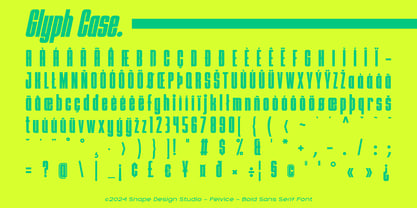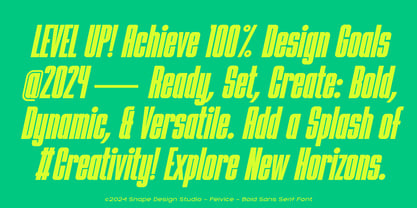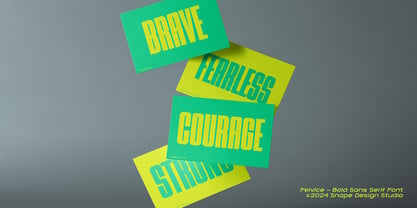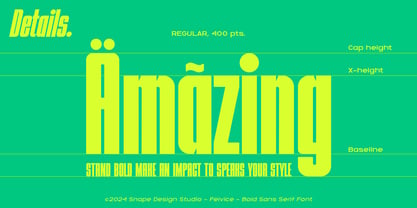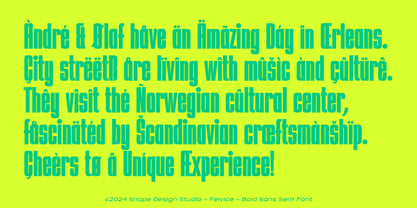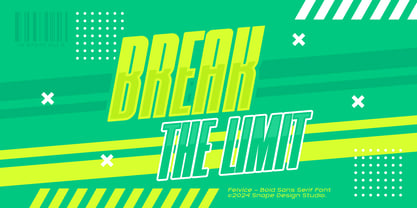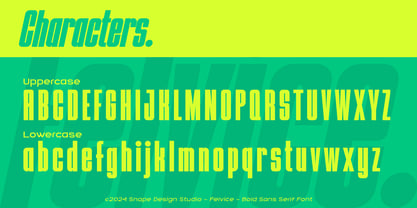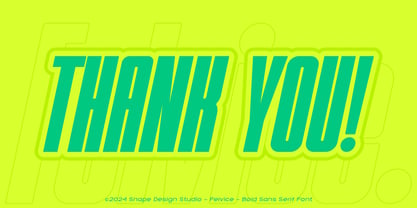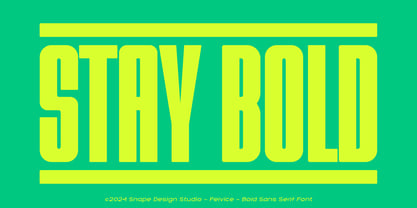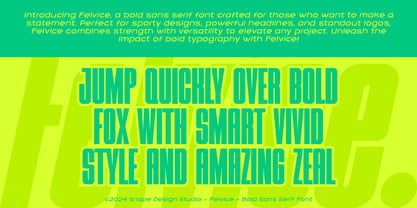
Felvice
The Felvice Font Family was designed by Ario Sabrang and published by snapedsgn. Felvice contains 2 styles and family package options. More about this family
Felvice is a bold sans serif font designed to deliver strong impact, modern character, and high readability. With its clean geometry, slightly condensed proportions, and confident curves, Felvice is perfect for projects that demand attention while staying professional and versatile. This typeface works beautifully across branding, logo design, posters, headlines, packaging, apparel, social media graphics, editorial layouts, and modern advertising. Whether you’re creating a sporty identity, futuristic visuals, or bold typographic compositions, Felvice brings power and clarity to your designs. Felvice comes in Regular and Italic styles, giving you flexibility to create dynamic hierarchies and expressive layouts. It supports multilingual characters, making it suitable for global and professional use. If you have any inquiries or need assistance, please feel free to contact us. We appreciate your support in enhancing your creative projects! Best Regards, Snape Design Studio.